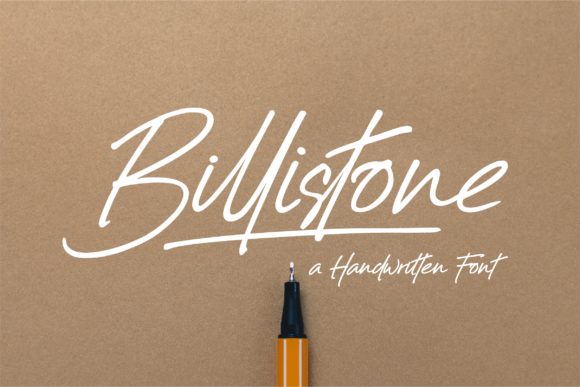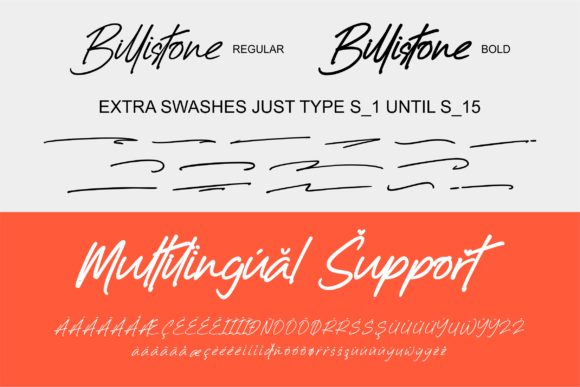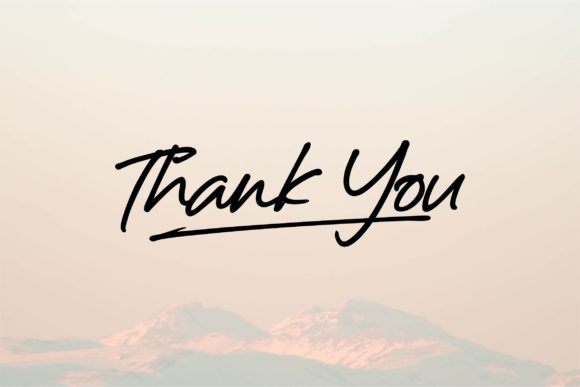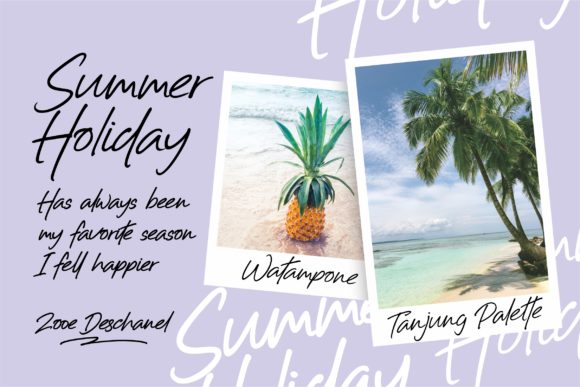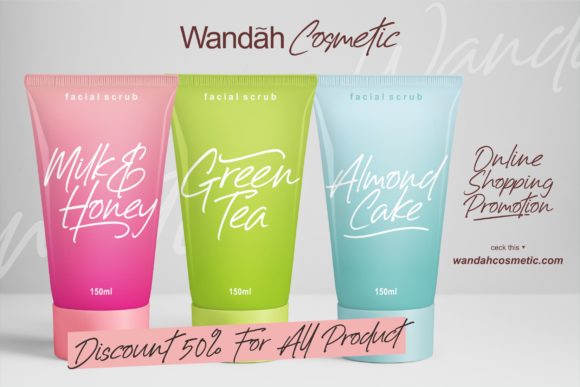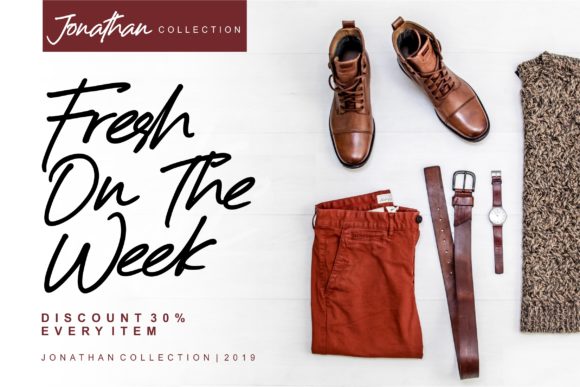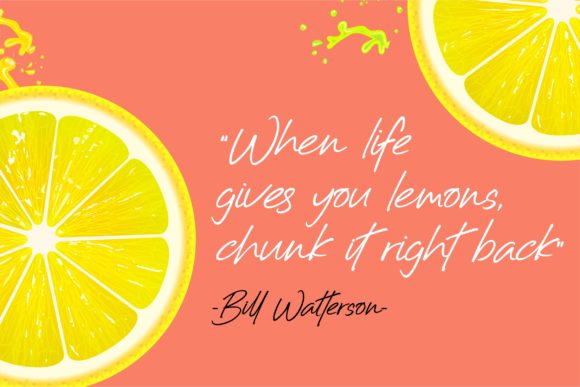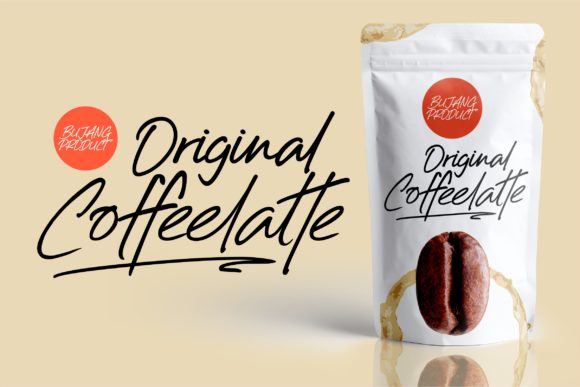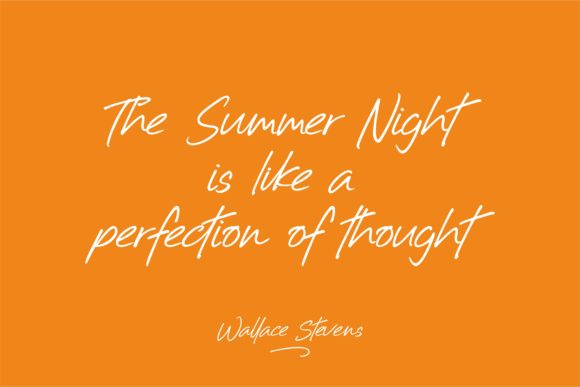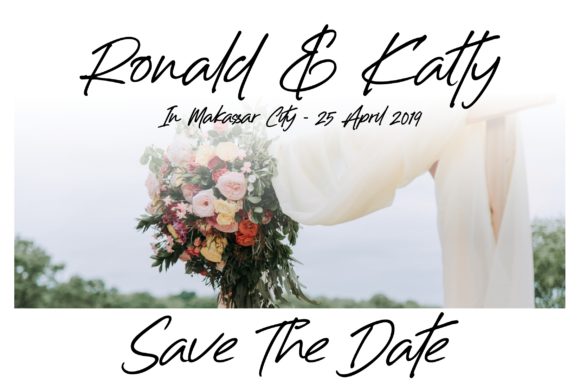
HomeScript FontsBillistone Font Script Fonts Billistone Font FacebookXPinterestWhatsApp Billistone Font Poster 2 Billistone Font Poster 3 Billistone Font Poster 4 Billistone Font Poster 5 Billistone Font Poster 6 Billistone Font Poster 7 Billistone Font Poster 8 Billistone Font Poster 9 Billistone Font Poster 10 Billistone Font Poster 11 About Billistone Font Billistone is a cool and fun handwritten font with an incredible style. Get inspired by its modern feel. DOWNLOAD ON CREATIVE FABRICAThis font is sold and delivered by Creative Fabrica. Font Canyon may earn a commission if you buy through this link. People also explored Simple Handmade Font Ethan Font Carbon Dog Friend Font Avartequero Font Villa Pretosh Loving Font Garnite Font Mens Bella Canvas 3001 Canvas Red Mockup 354 0 TagsBillistone Font Previous articleBugenfly FontNext articleStarlights Font LEAVE A REPLY Cancel reply Comment: Please enter your comment! Name:* Please enter your name here Email:* You have entered an incorrect email address! Please enter your email address here Website: Save my name, email, and website in this browser for the next time I comment. Personal Use Free Gratisan Personal Use Free Read more about this font Alinda Personal Use Free Read more about this font Machine House Personal Use Free Read more about this font Folgore Personal Use Free Read more about this font BLOG Where to Buy American Fonts Online in 2024 Where to Buy American Fonts Online: The Ultimate Guide for 2024 Looking for the perfect American font to elevate your design projects? You're in the... Exploring Font Trends Best Fonts for YouTube Videos: Make Your Thumbnails Stand Out Fonts That Capture the Spirit of New York City